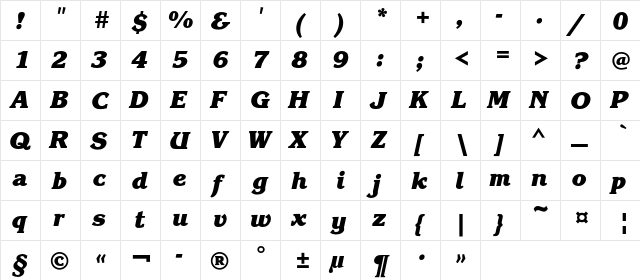
KorinnaBlackC Bold Italic Font Preview
Design Context for KorinnaBlackC Typeface
KorinnaBlackC offers clean, dependable letterforms without strong stylistic allegiance, making it a practical choice for designers who need flexibility. The dynamic lean of this cut emphasises speed and emphasis in any layout. Its bold stroke weight gives it real presence on the page.
Pro Tip: Try KorinnaBlackC for annotation and caption copy alongside an upright companion — the contrast in angle creates a dynamic but ordered typographic system.